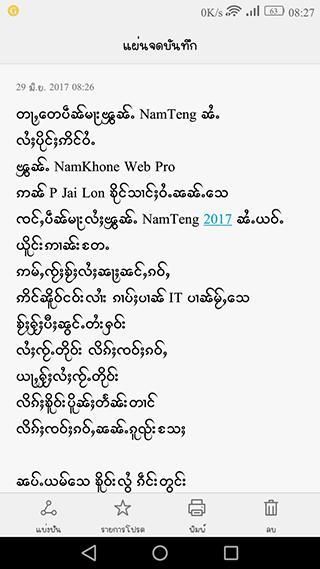
Namteng Font 2017 for OPPO
Shan Unicode
Description of NamTeng 2017 Oppo(iFont)
တႃႇတေပဵၼ်မႃးၾွၼ်ႉ NamTeng ၼႆႉ
လႆႈပိုင်ႈဢိင်ဝႆႉ
ၾွၼ်ႉ NamKhone Web Pro
ဢၼ် P Jai Lon ၶိုင်သၢင်ႈဝႆႉၼၼ်ႉသေ ၸင်ႇပဵၼ်မႃးလႆႈၾွၼ်ႉ NamTeng 2017 ၼႆႉယဝ်ႉ ယိူင်းဢၢၼ်းတႄႉ ဢမ်ႇၸႂ်ႈၶႂ်ႈလႆႈၼႃႈၼင်ႇၵဝ်ႇ ဢိင်ၼိူဝ်ငဝ်းလၢႆး ၵၢပ်ႈပၢၼ် IT ပၢၼ်မႂ်ႇသေ ၶႂ်ႈႁႂ်ႈပီႈၼွင်ႉတႆးႁဝ်းလႆႈၸႂ်ႉတိုဝ်း လိၵ်ႈၸဝ်ႈၵဝ်ႇ ယႃႇႁႂ်ႈလႆႈၸႂ်ႉတိုဝ်းလိၵ်ႈၶိူဝ်းပိူၼ်ႈတႅၼ်းတၢင်လိၵ်ႈၸဝ်ႈၵဝ်ႇၼၼ်ႉၵူၺ်းသႄႈ